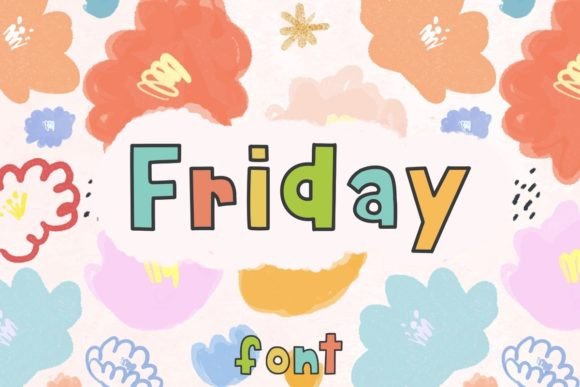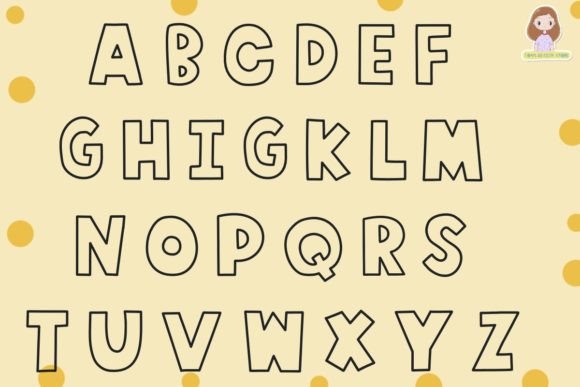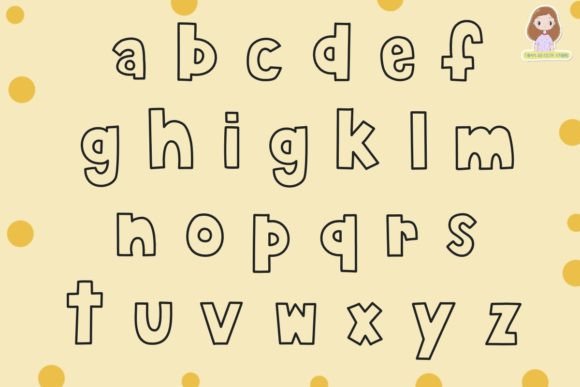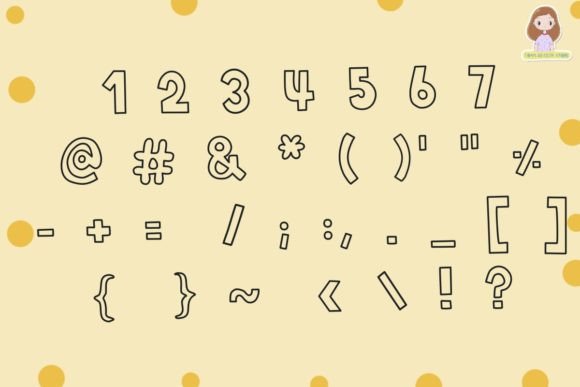
Friday Font
About Friday Font
Introducing Friday, a cute, fun, and playful font that exudes a friendly feel, making it incredibly flexible and suitable for a wide range of contexts. This trendy font invites you to have fun and explore its endless variations, allowing you to add a beautiful touch to each of your creative ideas and making them stand out!
The charm of Friday lies in its playful and friendly design, making it a perfect choice for projects that aim to convey a lighthearted and inviting vibe. Whether you’re working on branding, social media graphics, posters, or any creative endeavor, Friday is ready to infuse a sense of fun and creativity.
Consider using Friday in contexts where a cute and playful aesthetic is desired. Picture it on product packaging, where its friendly feel can engage customers and create a positive impression. Envision it on social media posts, adding a trendy and eye-catching element to your content. The flexibility of Friday makes it suitable for a variety of design applications.
In summary, Friday is more than just a font; it’s a creative companion that brings cuteness, fun, and playfulness to your projects. Its trendy and flexible nature allows you to explore endless variations, making it a delightful addition to your creative toolkit. Let Friday be the font that infuses a friendly and charming touch into your designs, ensuring they stand out with a cheerful and inviting vibe.